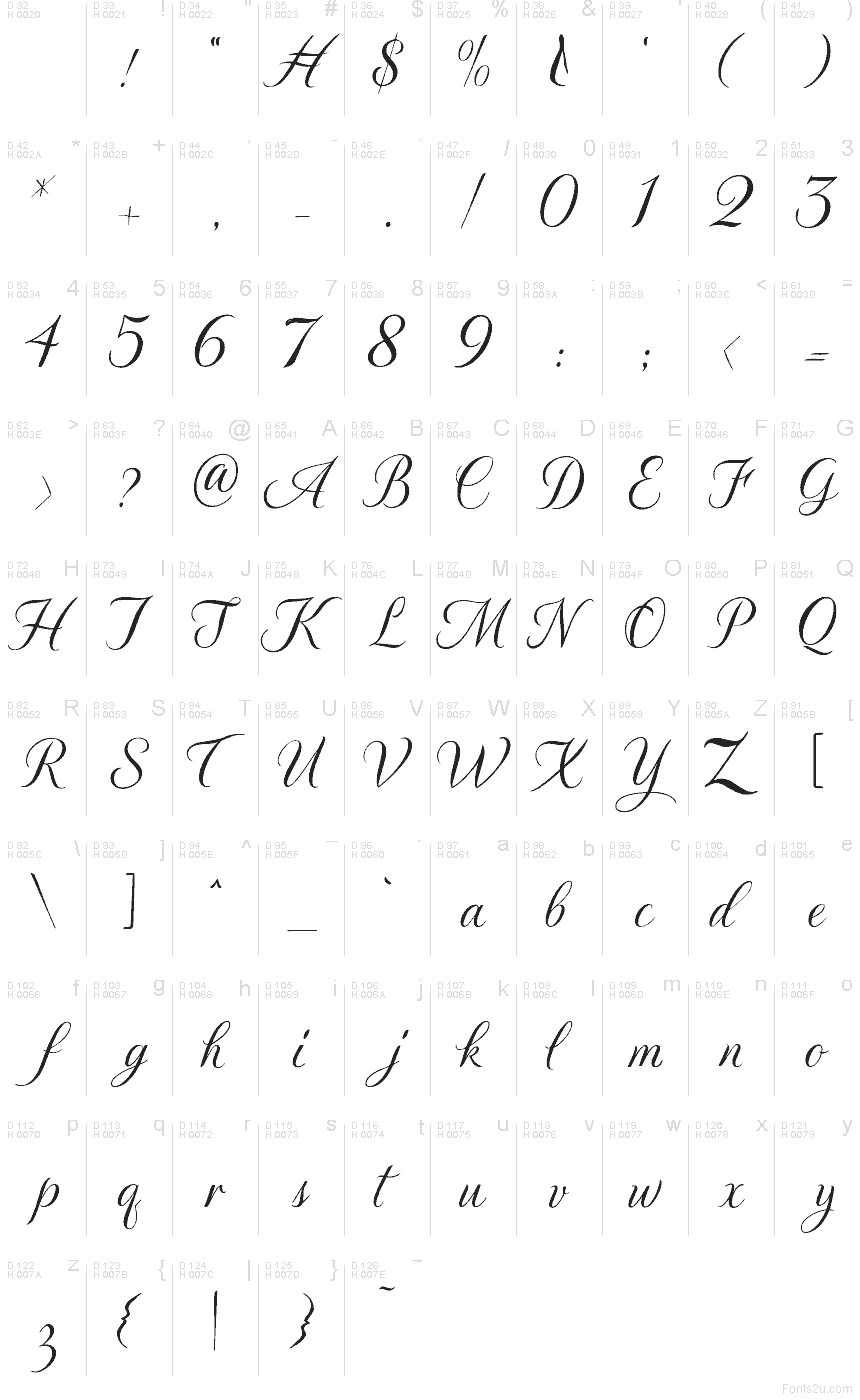
La Monarchie de Saint Ombre
La Monarchie de Saint Ombre, by BlackFridayFont, is a free formal calligraphy font with the air of engraved invitations and old-world ceremony. The letters sweep across the line in long, elastic strokes, mixing hairline loops with dark, tapering curves so the whole font feels poised, theatrical, and a little aristocratic.
It suits wedding stationery, perfume or jewelry branding, book covers, restaurant menus, and title cards where a few words can carry the mood. As a free font, it also makes sense for monograms, cover lines, and signature-style headings, because those extended swashes give short names and phrases room to linger.